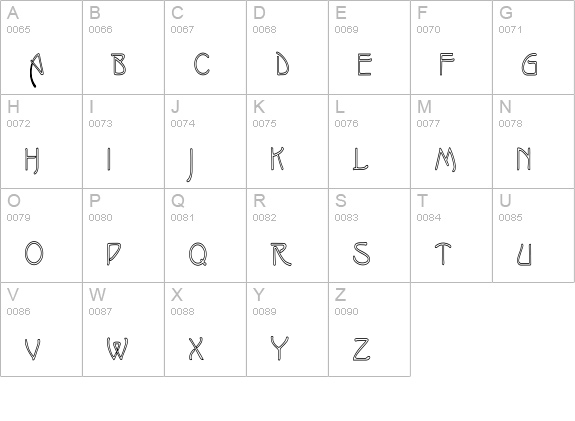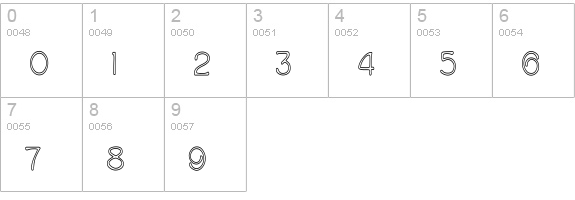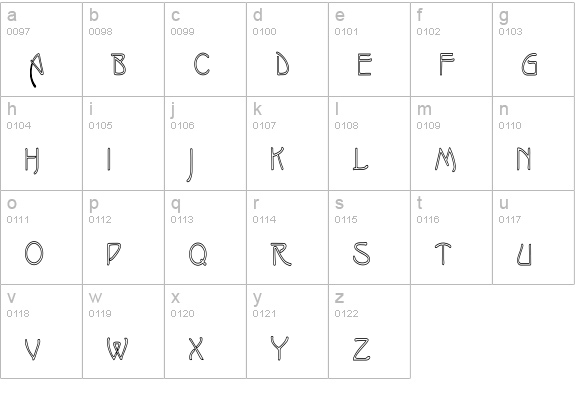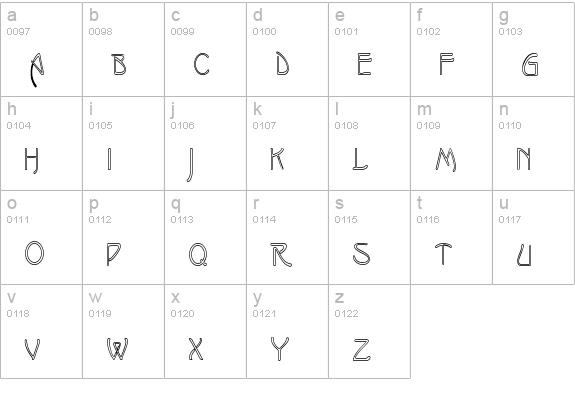
IsadoraHC Font Details
IsadoraHC is a stunningly beautiful and exquisitely crafted font that exudes elegance and sophistication. Its graceful curves and delicate strokes truly make it a standout choice for any design project. This font captures the essence of classical beauty, with a touch of modernity, making it perfect for both traditional and contemporary designs. IsadoraHC is a versatile font that can be used for a wide range of applications. Whether you're designing a wedding invitation, creating a logo, or working on a branding project, this font is sure to elevate your design and leave a lasting impression. One of the best things about IsadoraHC is that it is freely available to download at FontsMarket.com. This means that you can effortlessly add this stunning font to your collection without any financial burden. So, whether you're a professional designer or a student working on a personal project, you can enjoy the beauty and elegance of IsadoraHC without spending a dime. Don't miss out on the opportunity to enhance your designs with the timeless beauty of IsadoraHC. Download it for free today at FontsMarket.com and experience the magic of this exquisite font firsthand.